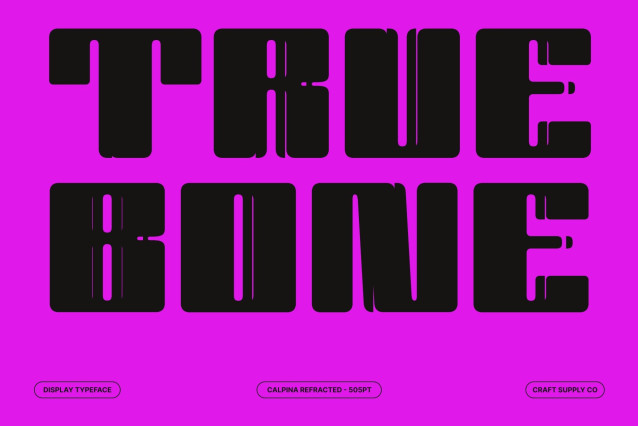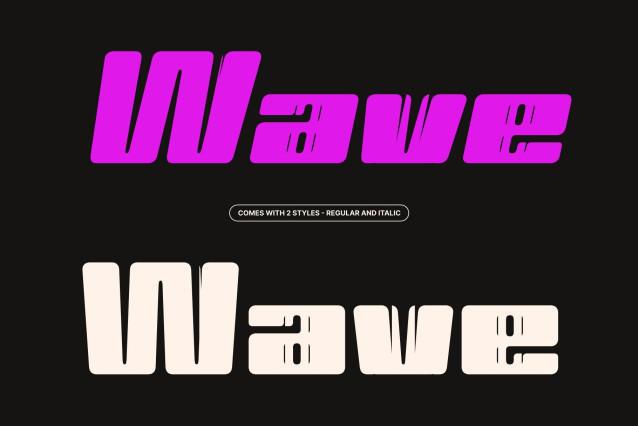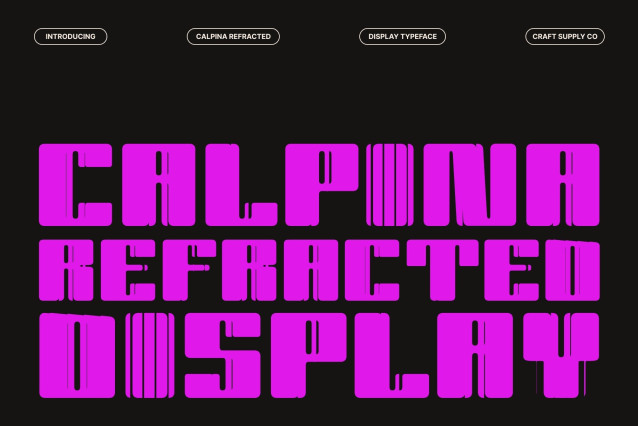
Calpina Refracted – Bold Sans Serif Font: Retro Playfulness with Futuristic Edge
Playful Retro Energy from the 90’s and 2000’s
This is a bold sans serif typeface inspired by the vibrant spirit of 90’s and early 2000’s design culture. Its chunky letterforms and cheerful personality instantly bring a sense of fun, nostalgia, and youthful creativity. The font captures the colorful optimism of retro pop visuals while maintaining the clarity and strength needed for modern design projects.
Refracted Effect for Trendy Visual Impact
What makes this font truly stand out is its dynamic refracted styling. Characters feature sliced geometric lines and light refraction details that create a subtle glitch-like appearance. This effect adds motion, shine, and futuristic flair to every word, transforming simple typography into an eye-catching centerpiece.